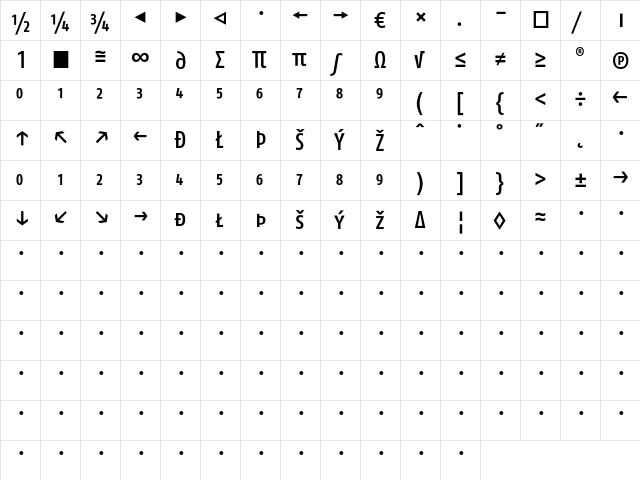
FagoCo MediumCapsExp Font Preview
FagoCo MediumCapsExp
FagoCo MediumCapsExp Font Details
Design Context for FagoCo Typeface
FagoCo offers clean, dependable letterforms without strong stylistic allegiance, making it a practical choice for designers who need flexibility.
Pro Tip: Use FagoCo in both headline and body roles to test its range before committing to a single application.